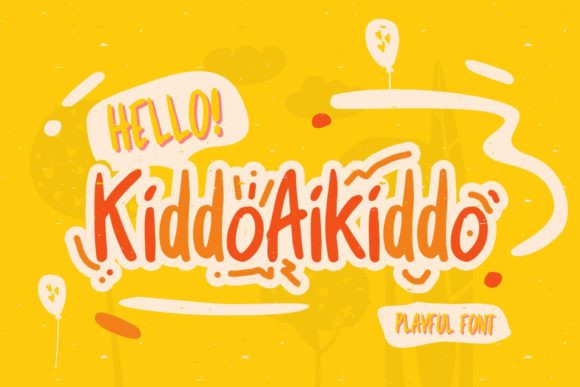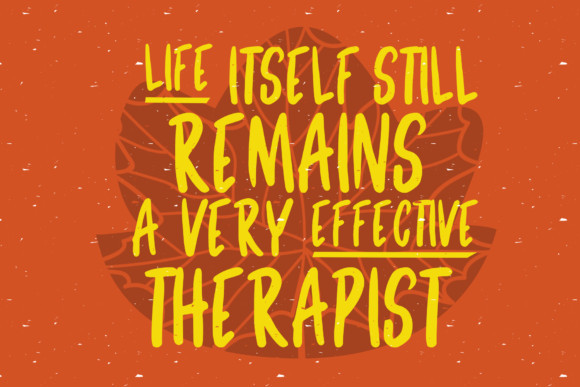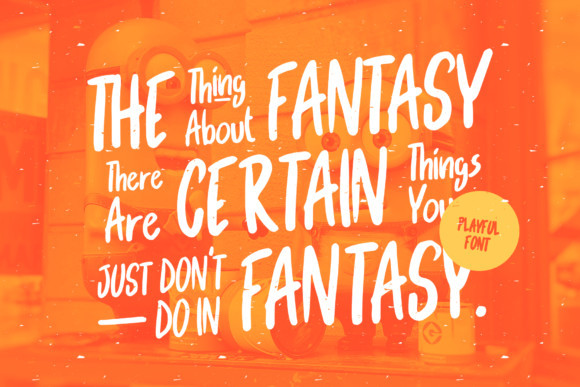
Kiddo Aikiddo Font
Kiddo Aikiddo embodies fun, quirkiness and authenticity. This enchanting display font will turn any creative idea into a true standout. Get creative with its unique playfulness, and use it to brighten up any crafting project!